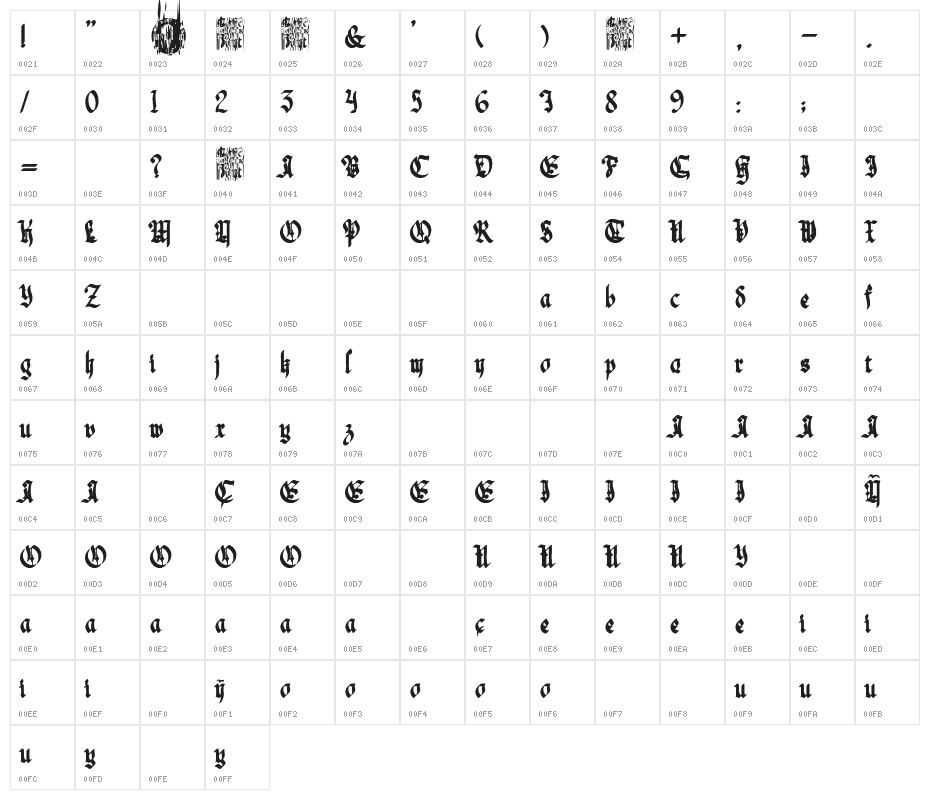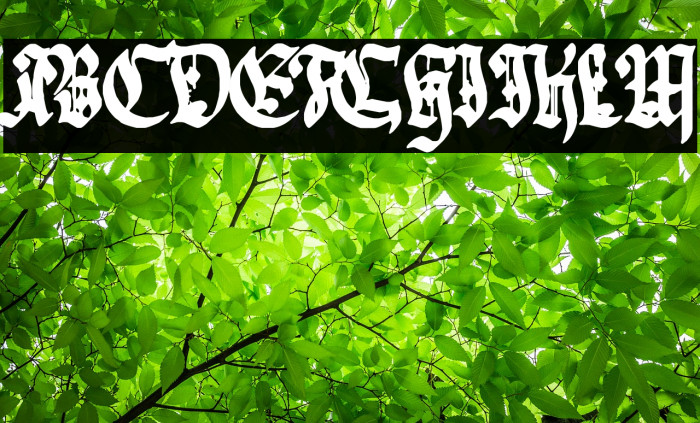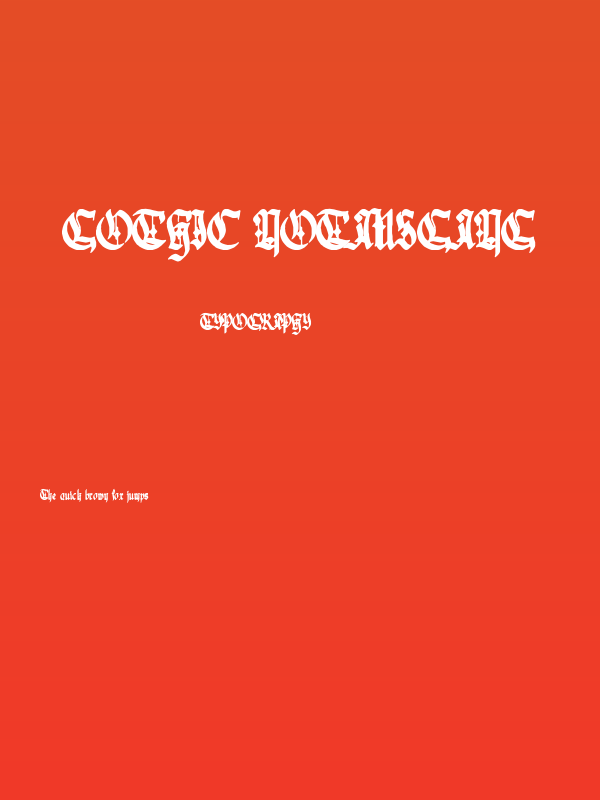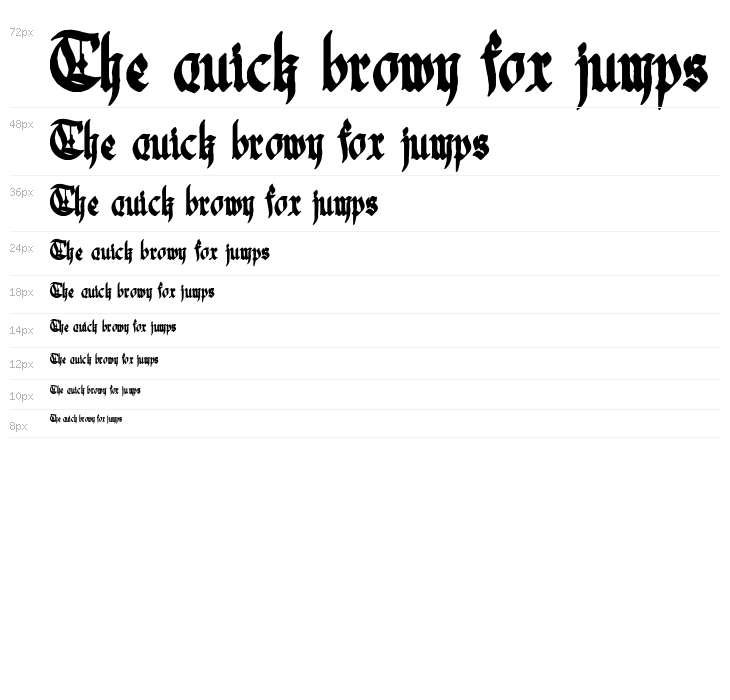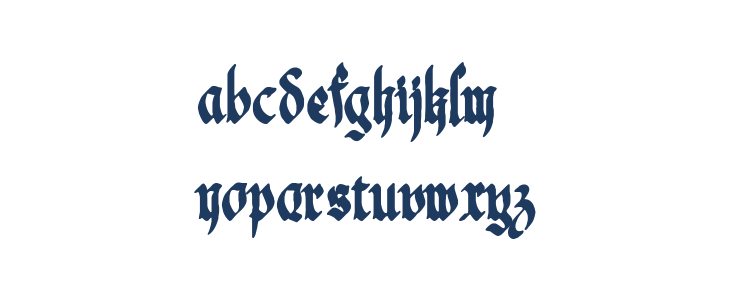
Gothic Notausgang Font
Gothic Notausgang Description
This font embodies a traditional Gothic style, characterized by its intricate and ornate letterforms. The uppercase letters are bold and commanding, with sharp angles and elaborate flourishes that give a sense of historical gravitas. The lowercase letters maintain the same level of detail, ensuring consistency throughout the typeface. Numbers and special characters are equally stylized, making them suitable for decorative purposes. The font's overall appearance is reminiscent of medieval script, often associated with historical or fantasy themes. Its dramatic and eye-catching design makes it ideal for projects that require a touch of elegance and antiquity.
| Use Case | Headlines, Logos, Decorative text |
| Proposed Projects | Ideal for use in historical or fantasy-themed projects, book covers, posters, and branding that requires a dramatic and elegant touch. |